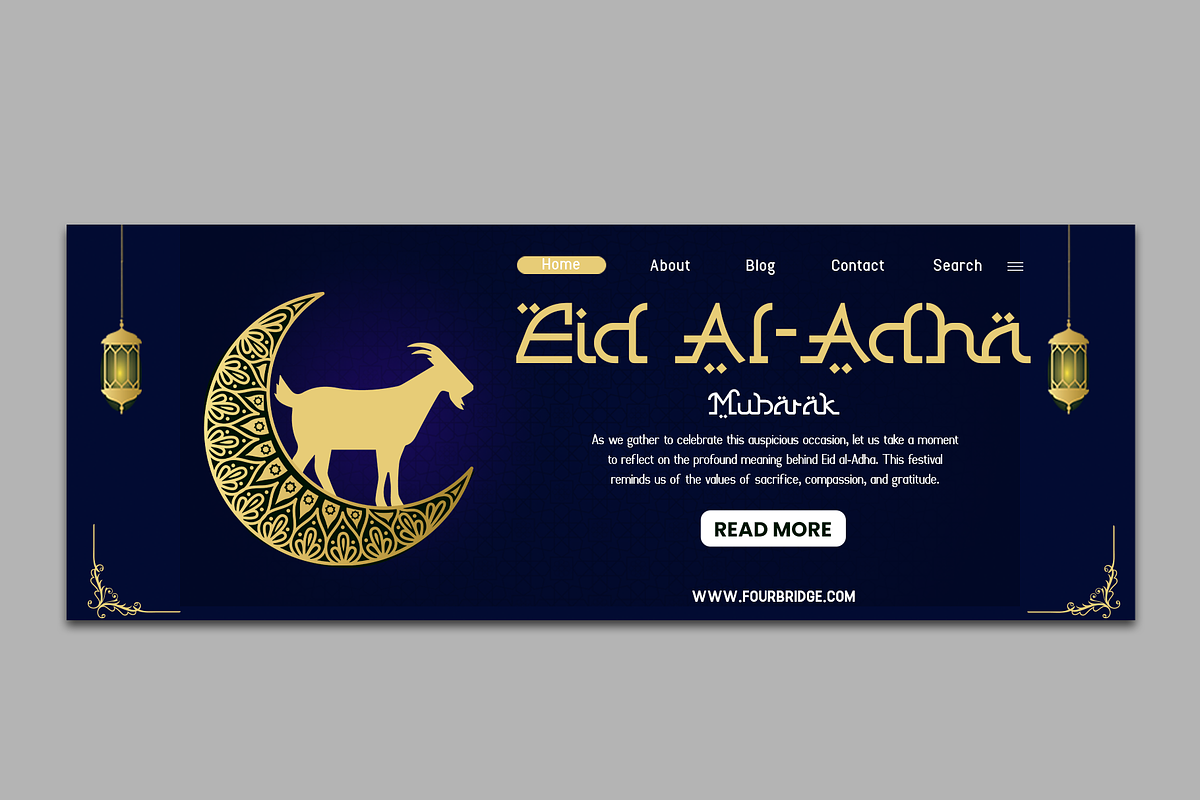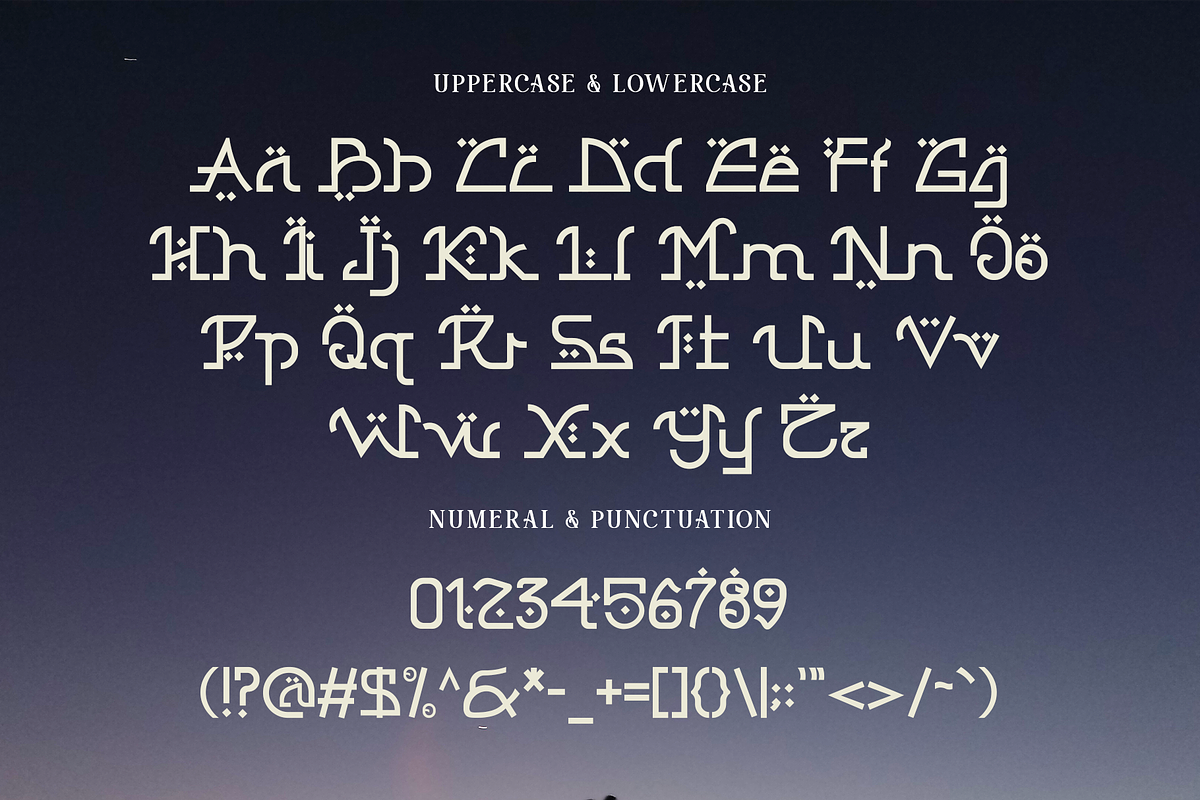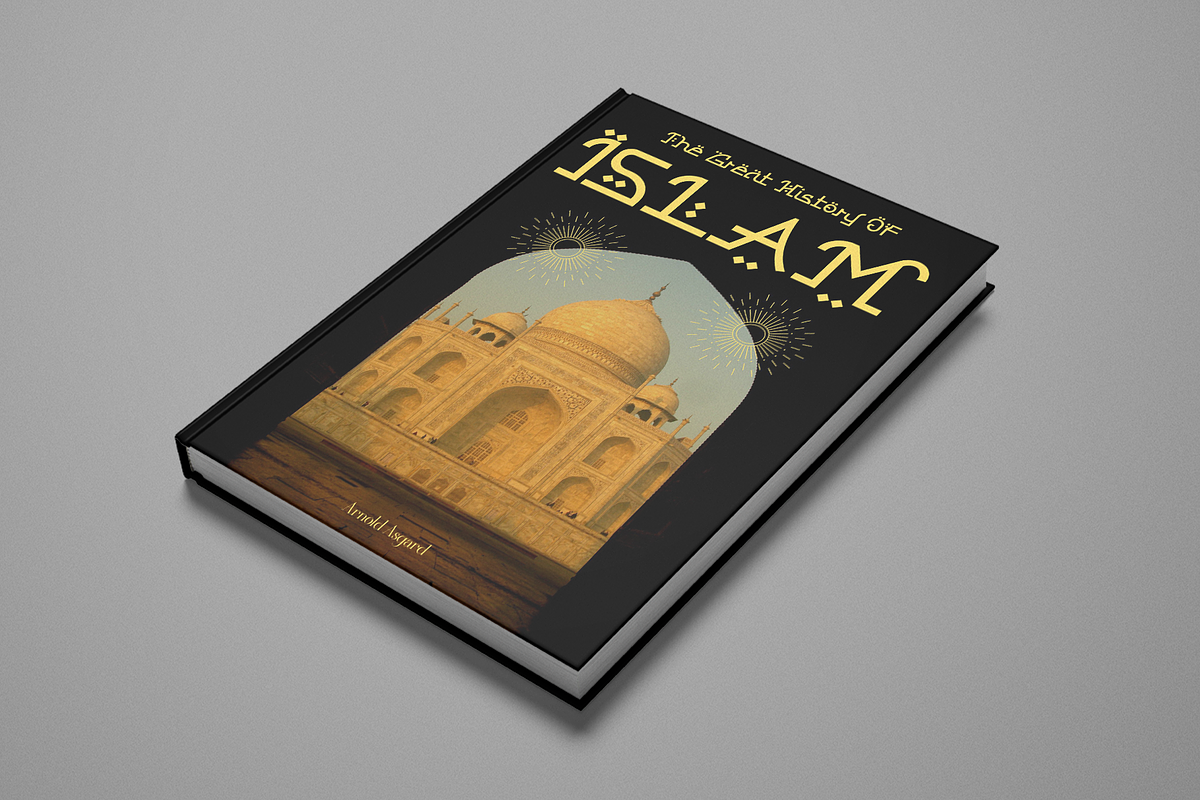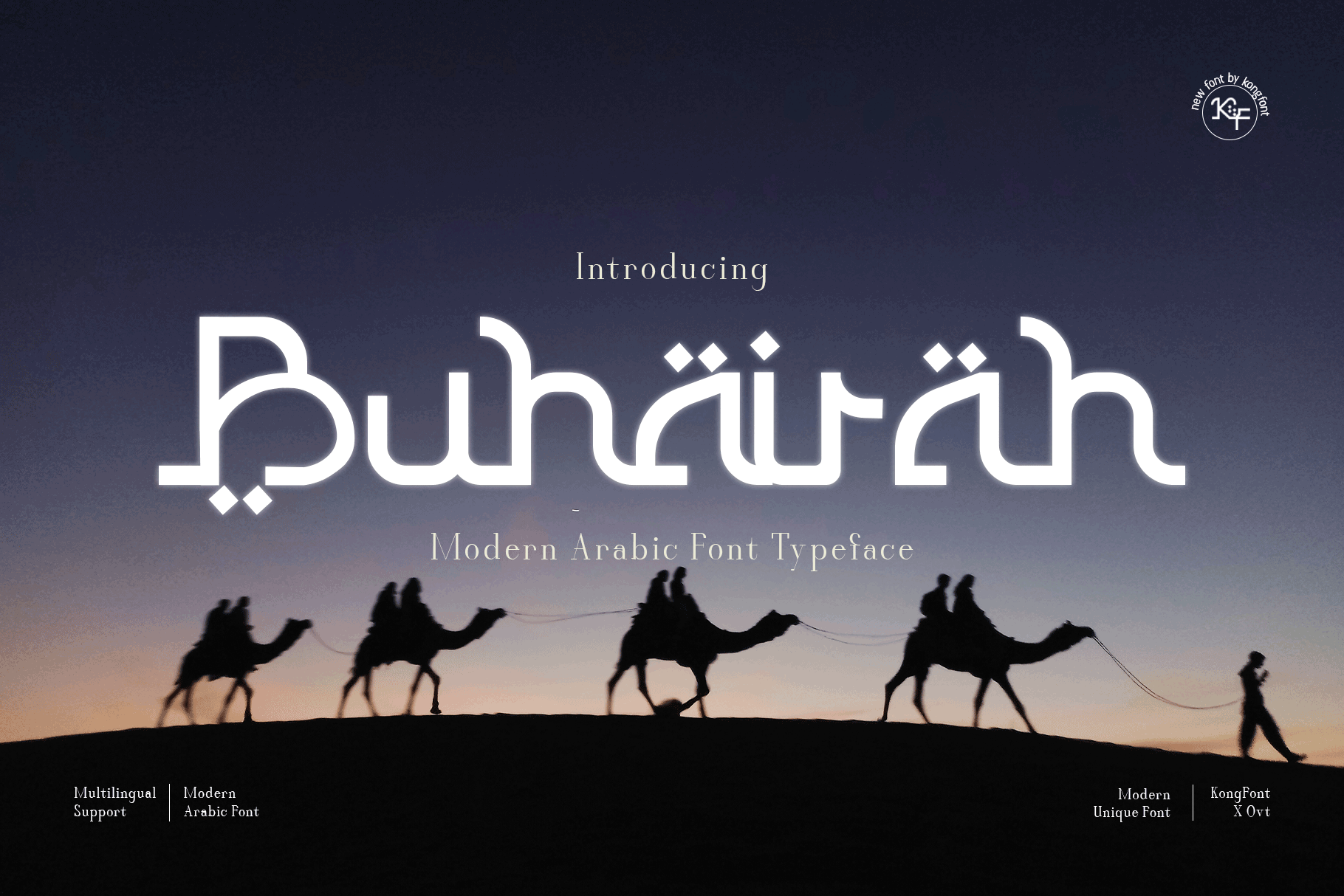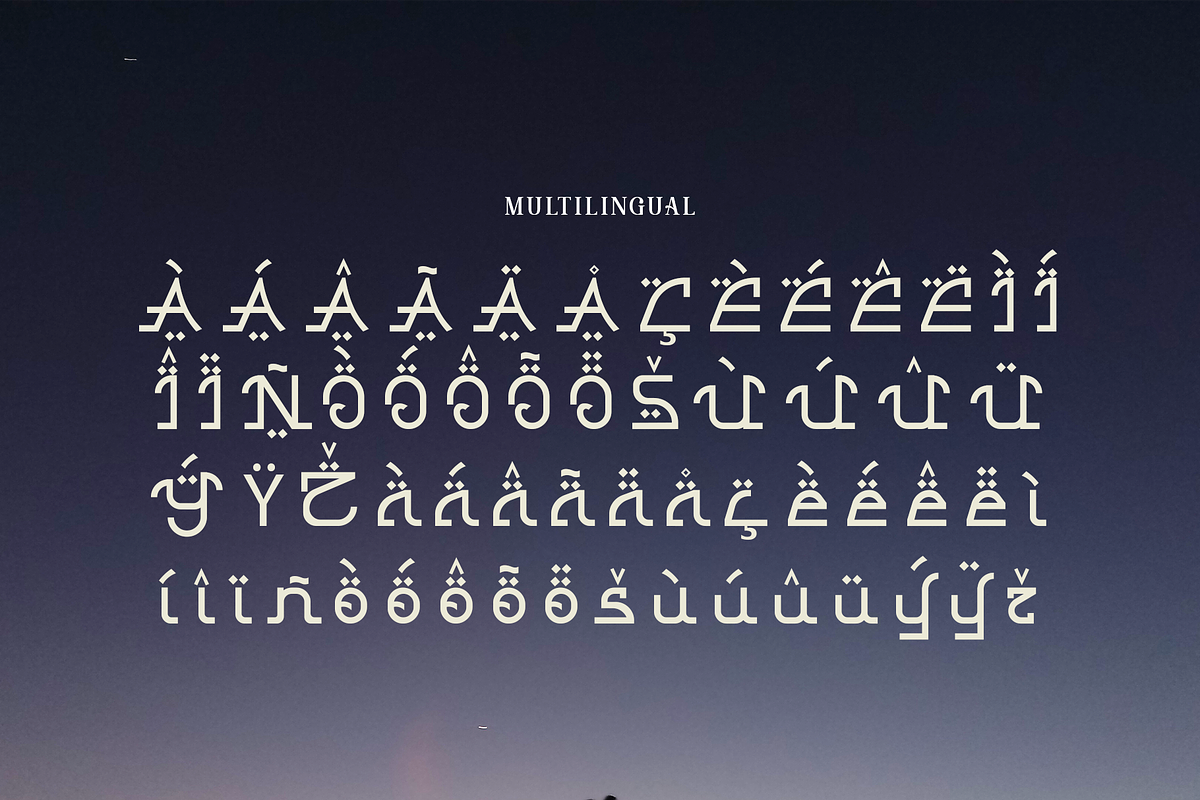
Buhairah–Modern Arabic Font Typeface
Buhairah – A Modern Arabic Font Typeface
Buhairah is a sleek and modern Arabic typeface designed to bring elegance and clarity to your creative projects. Its smooth curves and refined structure blend tradition with contemporary aesthetics, making it perfect for branding, editorial layouts, advertisements, product packaging, and invitations. Whether for digital or print media, this font offers exceptional readability with an artistic edge.
Designed to meet the needs of bilingual projects, Buhairah ensures a seamless integration of Arabic text, delivering both beauty and precision. The typeface captures the essence of modernity while respecting the flow of Arabic calligraphy, making it an ideal choice for projects that require sophistication and versatility.
With Buhairah, your designs will reflect both cultural depth and modern flair. It’s the perfect font for businesses, events, and designers who aim to create striking visual identities with an authentic touch.